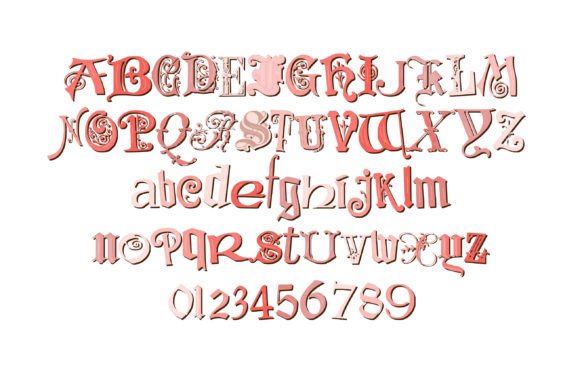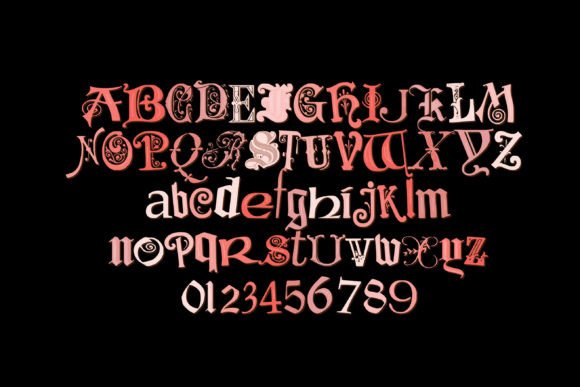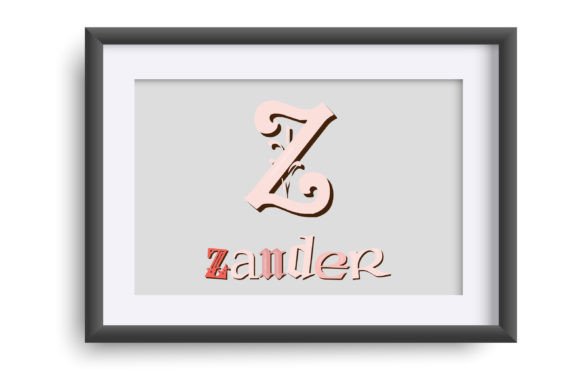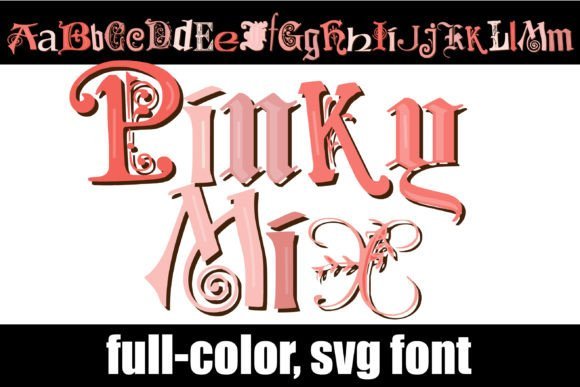
Introduction to Pinky Mix Font
This full-color font features a a mix of type styles in a pink color palette.
There is an alt version of each letter in a different color that you can access through your system or Silhouette’s character map If you are looking for a versatile, high-quality font that can be used for a variety of projects, then a full-color SVG font is the perfect choice for you.
Key Features of Pinky Mix Font